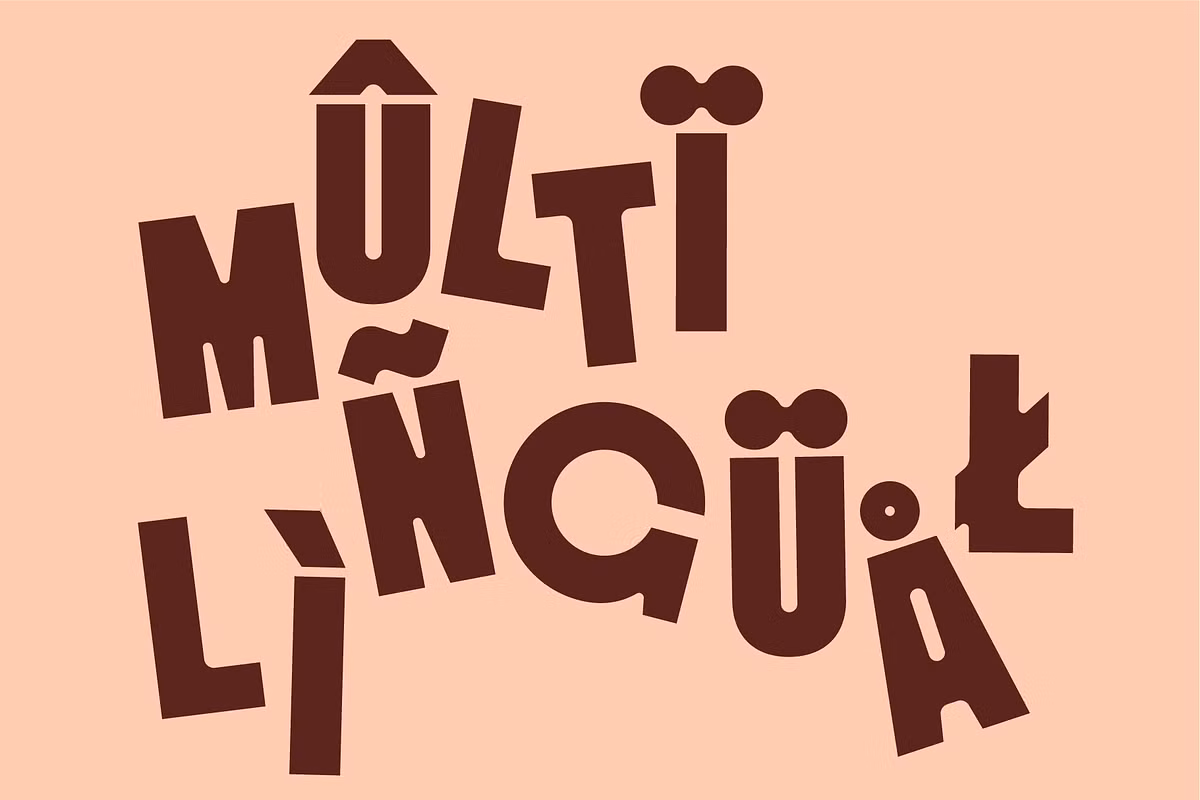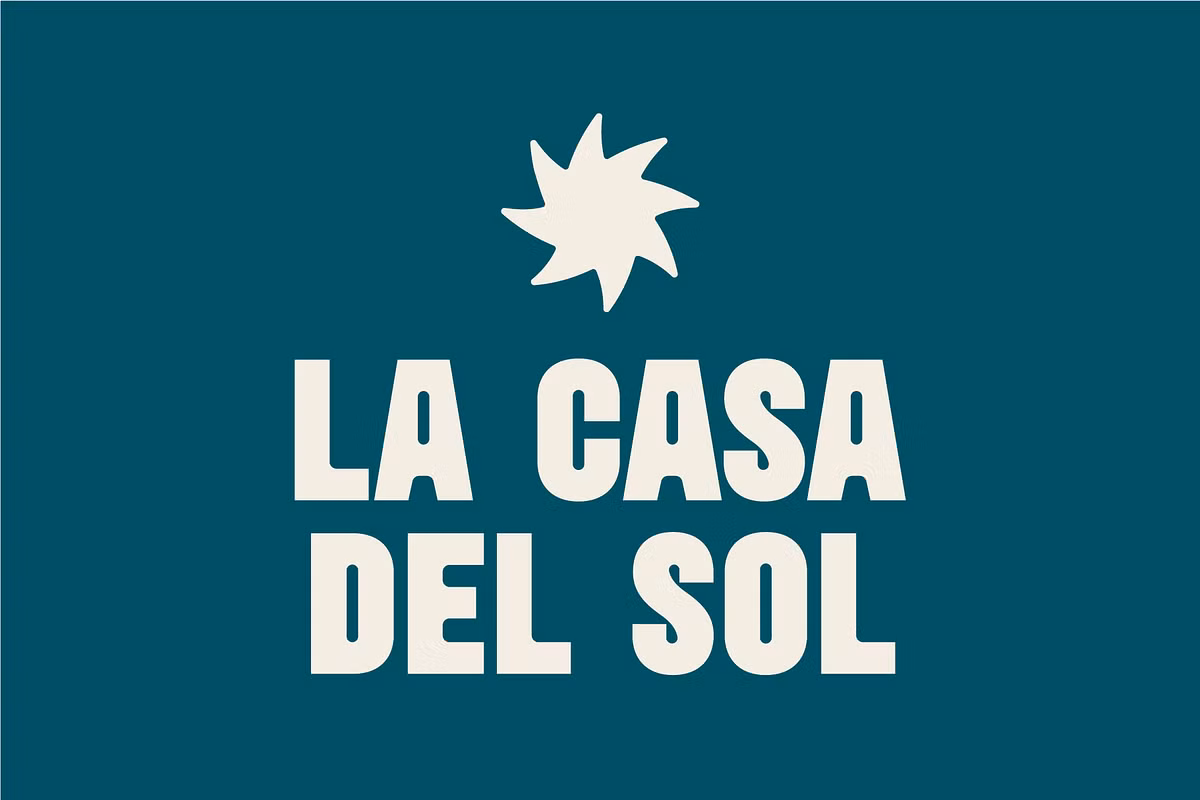
Quipo - Quirky Bold Display Font
Quipo: Quirky Bold Display Font for Impactful Design Projects
Quipo is a really cool font that’s curvy, bold, and perfect for projects that need to make a statement. It’s great for things like logos, magazine titles, and email campaigns – basically anything where you want to grab people’s attention. In this article, we’re going to take a closer look at what makes Quipo so special, from its unique design style to the different characters it includes, and all the ways you can use it to make your design pop. We’ll explore how Quipo can add a contemporary touch to your work, and what sets it apart from other fonts. Whether you’re a designer, a marketer, or just someone who loves playing with fonts, Quipo is definitely worth checking out. With its versatility and visual appeal, it’s the perfect choice for anyone looking to add a little extra something to their design.
Bold and curvy font design showcasing Quipo
Quipo’s bold and curvy design style.
Quipo’s design style is really fun and bold, which makes it perfect for modern projects. The curves are a bit quirky and the letters are one-of-a-kind, creating a sense of energy that grabs your attention. When you look at the font, you’ll notice it has thick lines and soft edges, making it seem friendly and easy to get along with, while still looking professional. This mix of playfulness and seriousness is what makes Quipo stand out. Its unique look can add some excitement to your design, and the boldness can help get your message across. Overall, Quipo is a great choice if you want to create something that’s both modern and eye-catching.
Quipo has a modern feel that makes it work well in lots of different media, like print and digital. Designers like it because it can get a point across in a clear and powerful way, whether it’s used in big headlines or smaller text. It’s got a good mix of being bold and being fun, which means it can fit in with lots of different design styles. This balance is what makes Quipo so versatile and easy to use in many different contexts. It’s a great choice for designers who want to create something that looks fresh and contemporary, without sacrificing clarity or impact. Whether you’re working on a big project or a small one, Quipo is a font that can help you get your message across in a way that’s both stylish and effective.
Character Sets
Quipo has a lot of characters that make it really useful for different kinds of projects. It’s got uppercase letters, special lowercase letters, punctuation marks, and numbers – everything you need to make your designs look great. With all these options, you can get really creative with how you use Quipo in your work. You can try out different combinations of characters to add some personality to your designs. This flexibility is what makes Quipo so versatile and fun to work with. Whether you’re making a poster, a logo, or just typing out some text, Quipo’s got the tools you need to make it look amazing.
Showcasing Quipo characters and versatility in design
Quipo’s character set showcases its versatility.
Quipo also offers support for many languages, including Afrikaans, Albanian, Catalan, Danish, Dutch, English, French, German, Italian, Norwegian, Portuguese, Spanish, Swedish, and Zulu. This is really helpful for designers who work on projects that involve people from different countries or who want to reach a global audience. With Quipo, they can easily add text in different languages to their designs, which makes their work more efficient and effective. By doing so, designers can communicate their message to people who speak various languages, making their designs more accessible and user-friendly. This feature is especially useful in today’s globalized world, where designers often need to create content that appeals to people from diverse linguistic and cultural backgrounds.
Quipo is remarkably versatile, making it suitable for a range of design applications. Here are some notable use cases for this bold display font:
• Logo Design: Quipo’s distinctive curves and bold presence make it an excellent choice for creating memorable brand logos. Its uniqueness helps brands stand out in a crowded marketplace.
• Magazine Mastheads: The font’s bold nature allows it to command attention on magazine covers, attracting readers’ interest from the moment they see the publication.
• Email Marketing Campaigns: When used in email headers or promotional graphics, Quipo can effectively convey the personality of the brand, increasing engagement rates with its eye-catching design.
• Social Media Graphics: Quipo’s playful yet impactful style is perfect for social media posts, helping to create visually striking content that resonates with audiences.
When pairing fonts, it’s crucial to find complementary typefaces that enhance the overall design without overwhelming it. Here are some pairing suggestions for Quipo:
• Quipo and Montserrat: For a modern and clean look, pair Quipo with Montserrat. The geometric sans-serif nature of Montserrat contrasts well with Quipo’s quirky characteristics.
• Quipo and Open Sans: This combination provides a balance between bold display and versatile readability. Open Sans can serve well for body text, allowing Quipo to shine in headings.
• Quipo and Roboto: These two fonts work really well together. Roboto has a modern feel that complements Quipo’s fun, curvy shape, making them a great pair for digital designs that need to be both useful and visually appealing.
Visual examples of font pairings with Quipo
Examples of font pairings with Quipo for design.
Quipo is a really cool font that’s perfect for making a big impact in your designs. It’s fun, but also professional, so you can use it for lots of different projects. One of the best things about Quipo is that it has a huge range of characters, which means you can use it to write in lots of different languages. This makes it really useful for designers who want to create work that can be used all around the world. You can use Quipo for things like logos, headings in magazines, and advertising campaigns – it’s a really versatile font that can help you create something truly unique. So why not give Quipo a try and see what kind of amazing things you can create with it? It’s a great way to add some personality to your work and make it stand out from the crowd. With Quipo, the possibilities are endless, and it’s up to you to explore them and let your creativity shine! Whether you’re working on a big project or just want to try something new, Quipo is definitely worth checking out.